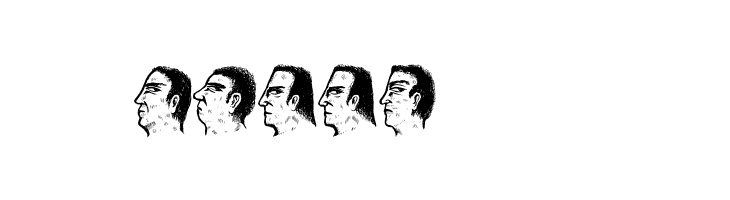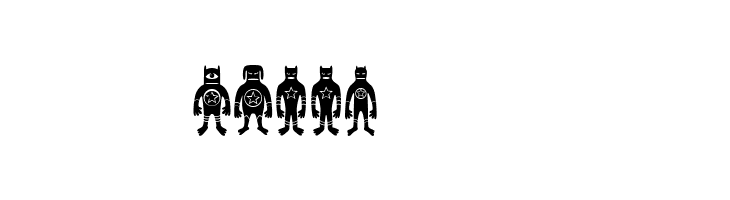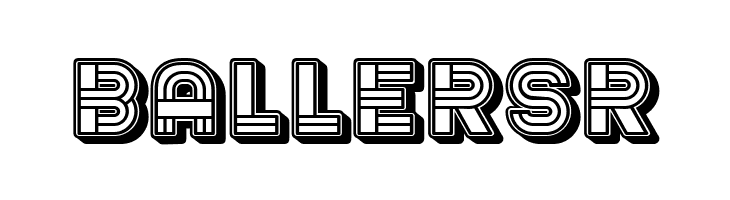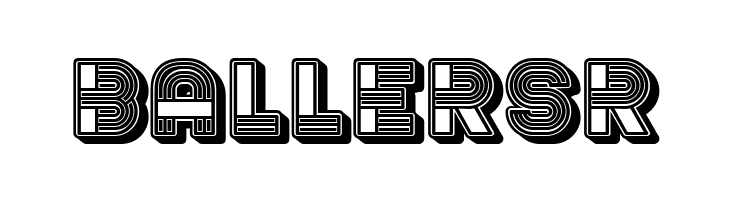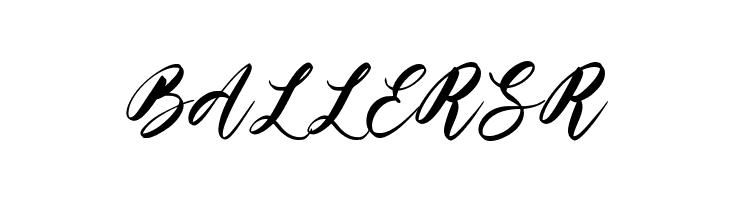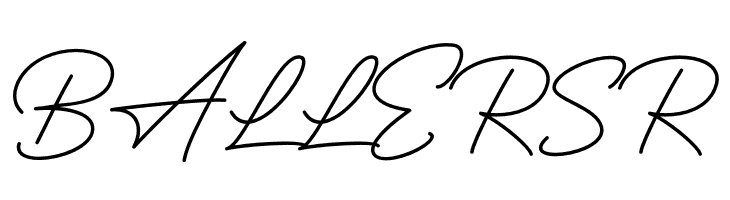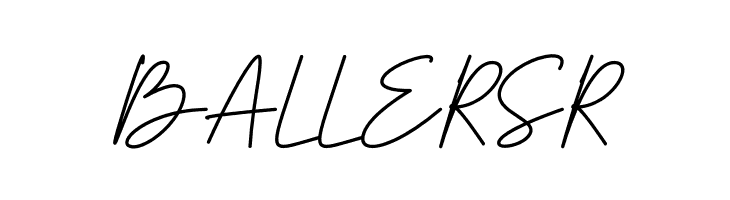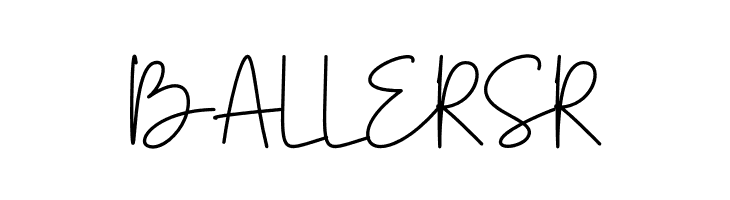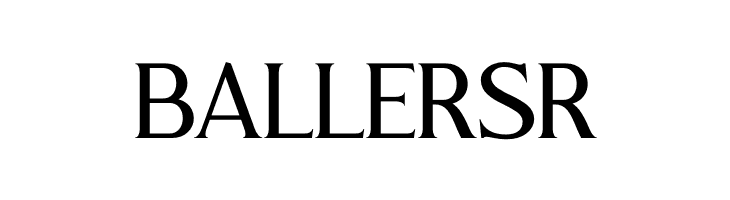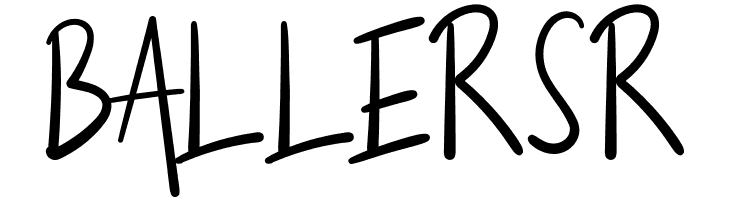
Superhero silhouette font with bold, action-packed character shapes.
A playful font featuring superhero-themed characters for each letter and number.
A playful, handwritten font with a casual and dynamic style.
A dynamic and flowing script font with elegant, interconnected strokes.
A bold, expressive handwritten font with dynamic strokes.
A bold, distressed font with a grunge aesthetic and rugged texture.
A lively handwritten font with dynamic strokes and a playful style.
A bold, energetic script font with expressive strokes and a dynamic style.
A bold, brush-style font with dynamic, energetic strokes.
A bold, condensed font with tall, narrow letterforms and consistent stroke thickness.
A bold, sketch-like font with a hand-drawn, textured appearance.
A bold, gothic-style font with intricate details and sharp serifs.
A bold, blackletter-inspired font with ornate serifs and dramatic flair.
A classic serif font with elegant lines and moderate contrast, suitable for versatile applications.
Illustrative font using human profile drawings as characters.
An elegant, cursive script font with flowing, decorative characters.
A bold, dynamic font with unique curves and strong presence.
A whimsical, hand-drawn font with thin, irregular strokes and playful character.
A bold, dotted decorative font with a playful and engaging style.
An elegant, cursive script font with flowing, interconnected characters.
A dynamic and flowing script font with elegant, fluid strokes.
A modern, handwritten font with a casual and elegant style.
A modern, elegant handwritten font with fluid, continuous strokes and a dynamic slant.
An elegant script font with ornate, flowing letterforms and intricate flourishes.
A cursive, handwritten-style font with elegant, flowing characters.
An elegant and fluid script font with a natural handwriting style.
A bold, decorative font with layered, parallel lines creating a modern and retro look.
A bold, decorative font with a layered outline effect, ideal for retro-inspired designs.